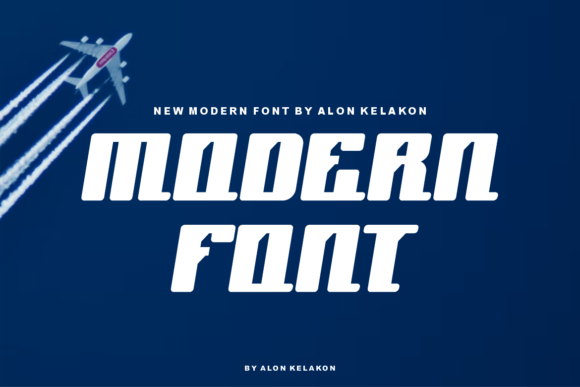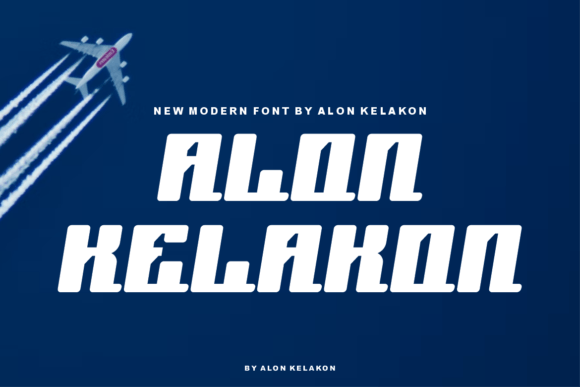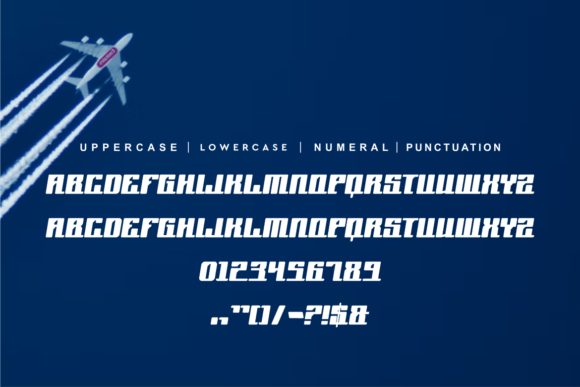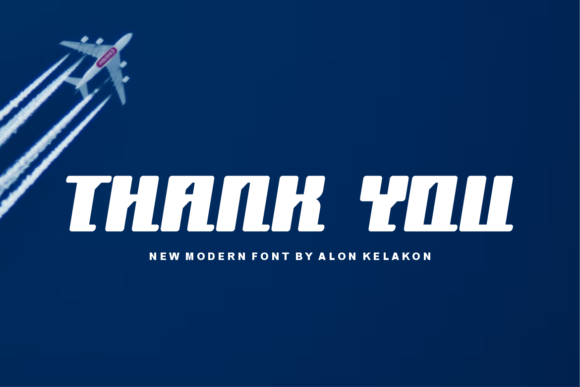
Introduction to Jetquick Font
As a designer, have you ever found yourself stuck in the middle of a project, searching for that perfect font to bring your creative vision to life? You know the moment – you’re staring at a blank screen, your mind racing with ideas, but something’s missing. That’s where the Jetquick Font comes in, a game-changing design resource that’s about to revolutionize the way you approach your next creative project.
With its unique style and versatility, the Jetquick Font is the perfect addition to any designer’s toolkit. Whether you’re working on a label, creating a logo, or designing a movie title, this font is ready to take your project to the next level. And the best part? It’s available for a free download, complete with a transparent background, making it easy to integrate into any high-quality design.
Key Features of Jetquick Font
- High-quality, vector-based font design for optimal clarity and flexibility.
- Jetquick Font is available in a single size, making it easy to use in a variety of design contexts, from small text to large headings.
Honest Review: Jetquick Font
I recently had the chance to experiment with the Jetquick Font, and I must say it’s a fantastic addition to any design resource collection. This font is perfect for creative projects that require a bold and modern touch.
What works well: ✨ The Jetquick Font has a clean and minimalist design that makes it easy to read. It’s also highly customizable, allowing you to adjust the font size, color, and style to fit your needs. I also appreciate the fact that it’s available for free download, making it a great resource for designers on a budget.
One of the standout features of the Jetquick Font is its ability to be used with a transparent background, giving you a wide range of creative possibilities. The high quality of the font ensures that it looks great on any screen or printing surface.
Limitations: ⚠️ While the Jetquick Font is a great addition to any design resource, it may not be suitable for all types of projects. It’s best used for titles, headings, and other large text elements, as it can be a bit too bold for body text.
Overall impression: I’m really impressed with the Jetquick Font, and I can see myself using it for many future creative projects. It’s a great resource for designers who want to add a touch of modernity to their work.
- Perfect for titles, headings, and large text elements
- Works well with transparent backgrounds
Tips for Getting the Most Out of Jetquick Font
To get the most out of the Jetquick Font, use it in combination with other design elements such as images, graphics, and textures. Experiment with different font sizes, colors, and styles to create a unique look.
The Jetquick Font is commonly used in creative projects such as logos, business cards, brochures, and social media graphics. It can also be used in presentations, documents, and websites to add a touch of sophistication and elegance.